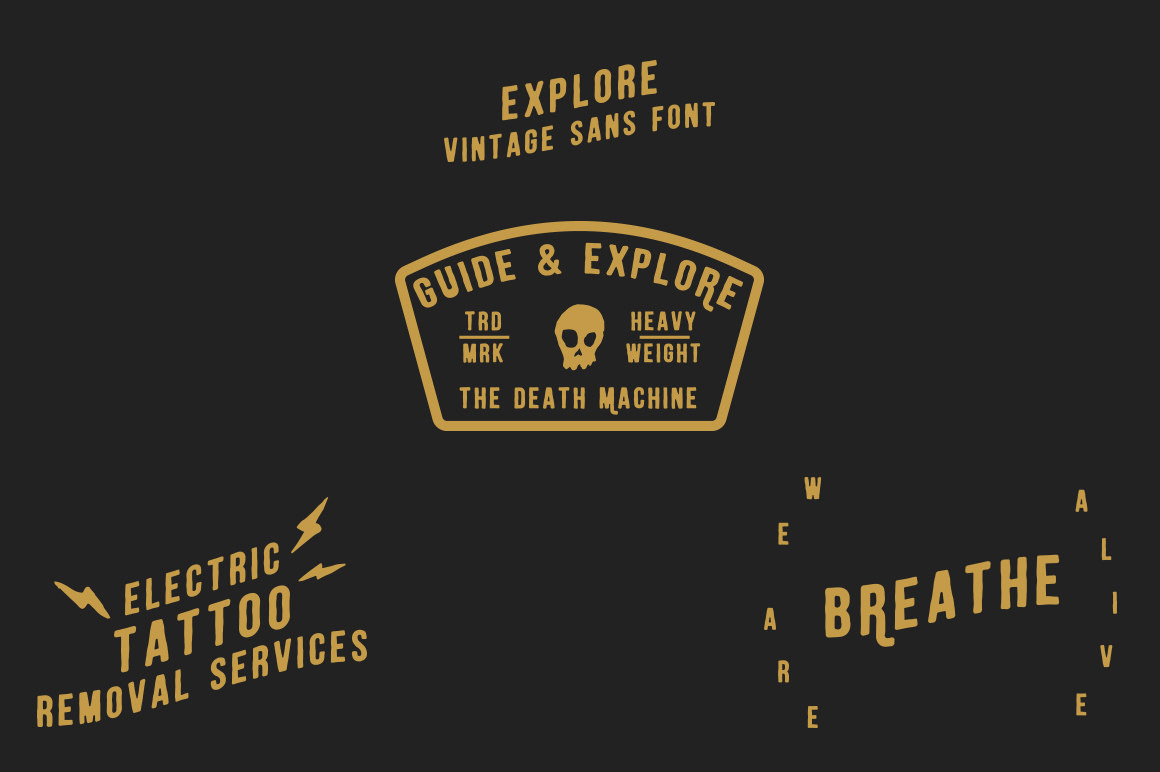
Explore ~ A Hand Drawn Font
Explore is a new hand drawn typeface, available from Greenhouse Supply Co. by Justin Greene.
It comes in 2 different styles, Regular & Textured, for that vintage look!
Great for Logos, Stationary, Posters, Apparel, literally everything design related. It includes alternate ligatures for several of the uppercase characters, just to achieve that Vintage signage & hand drawn inspired feel.
As with anything made by Greenhouse, expect only the best, from the kerning to the alternates, down to the smallest details. The alternate uppercase characters are perfectly kerned for your use. Made for designers, by designers.